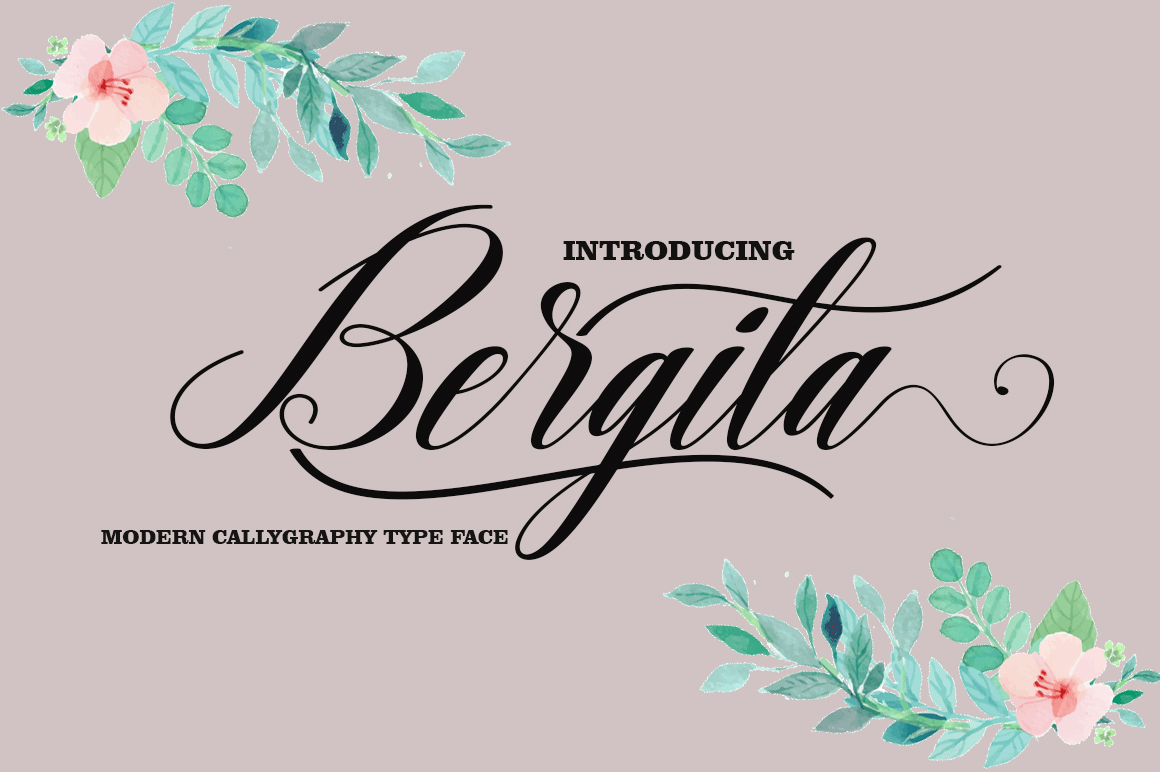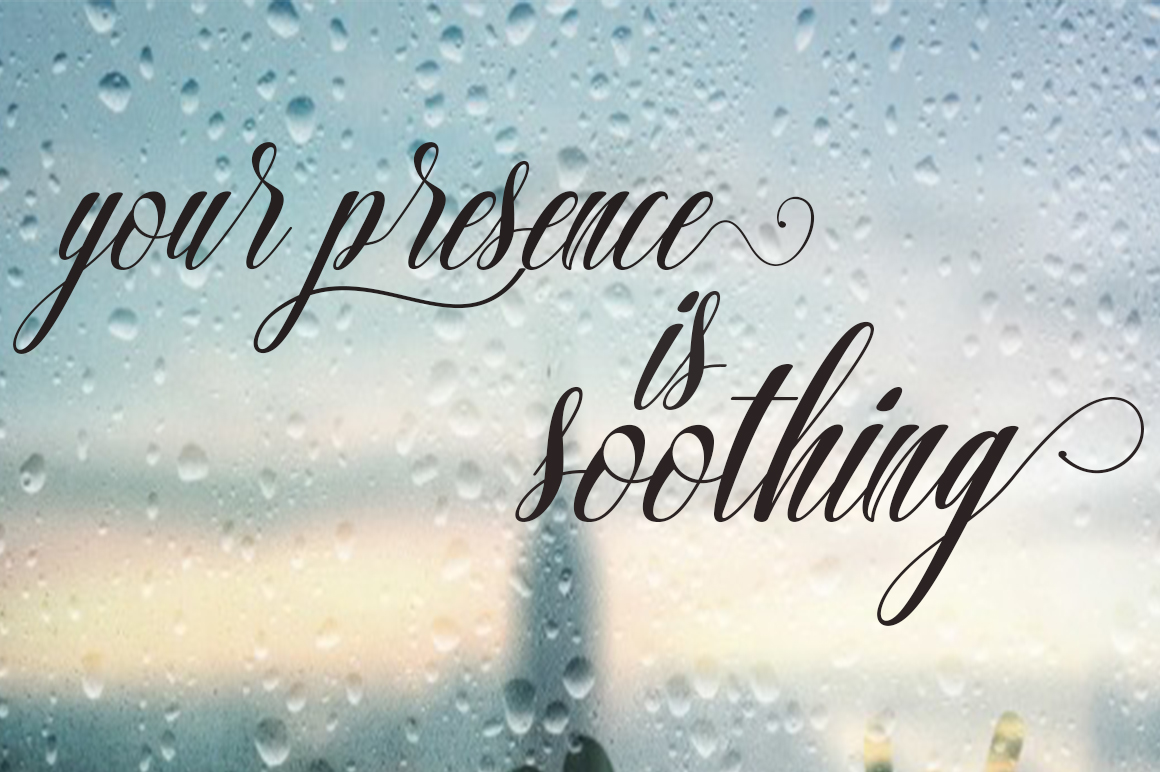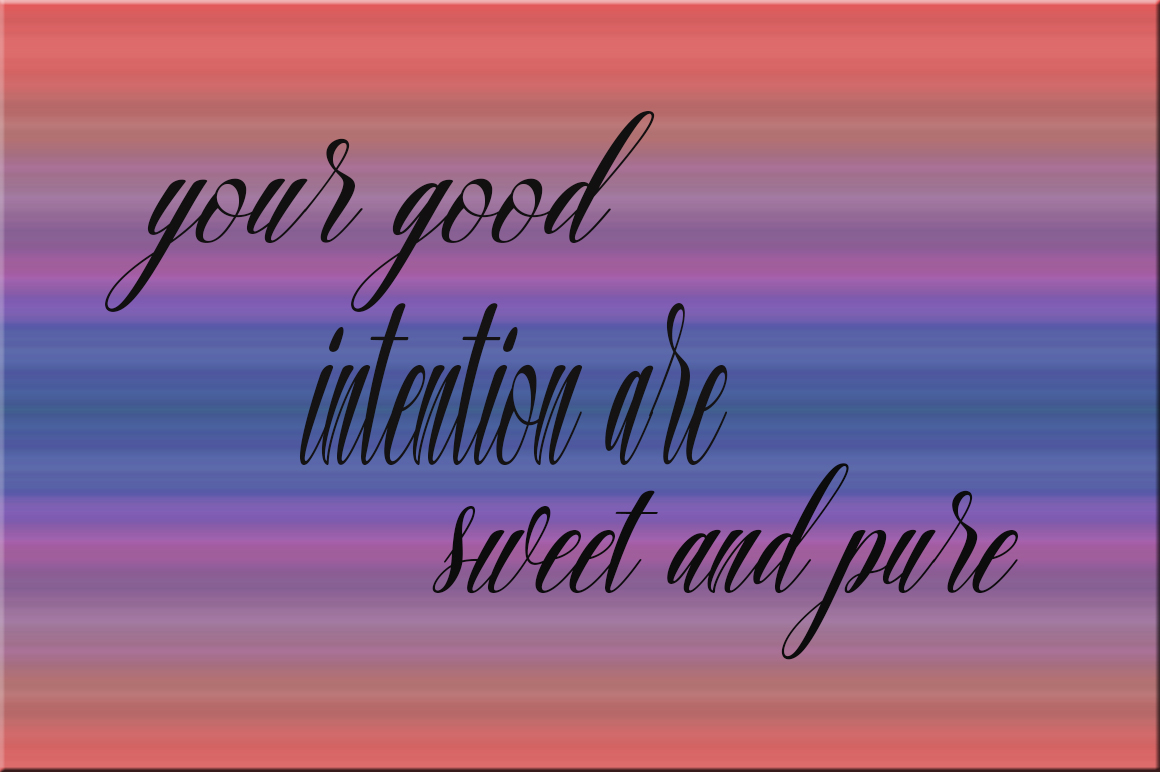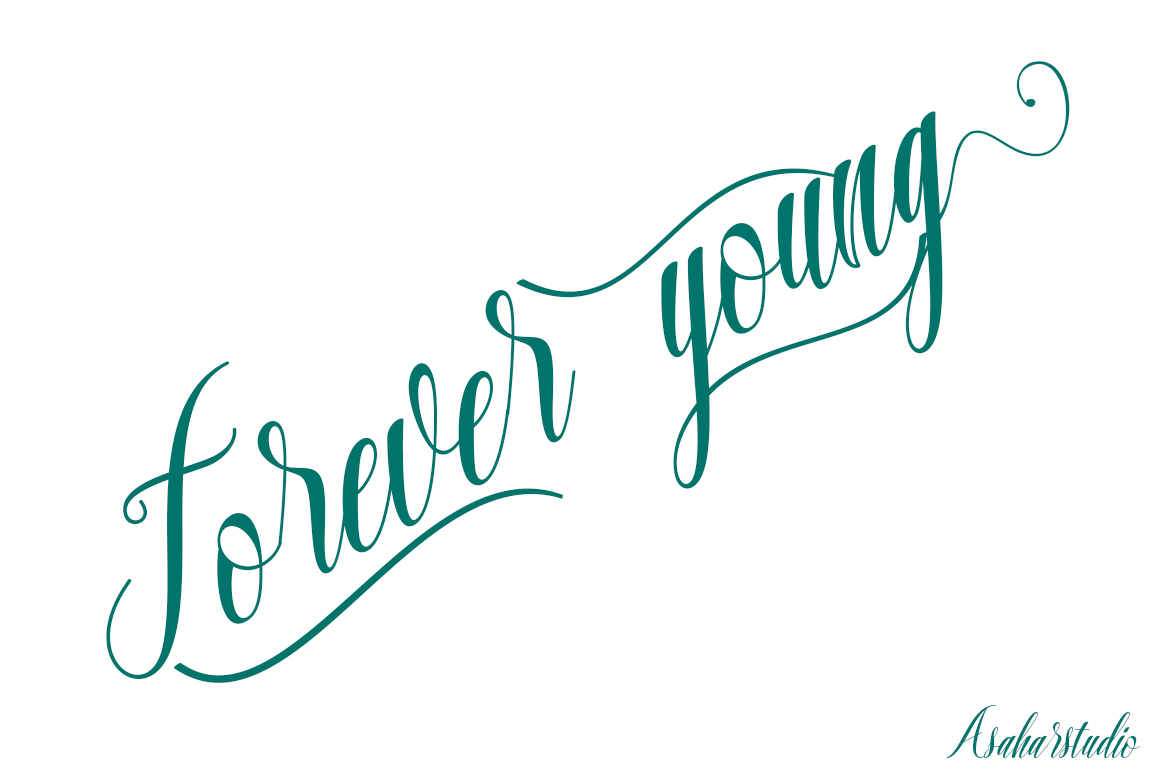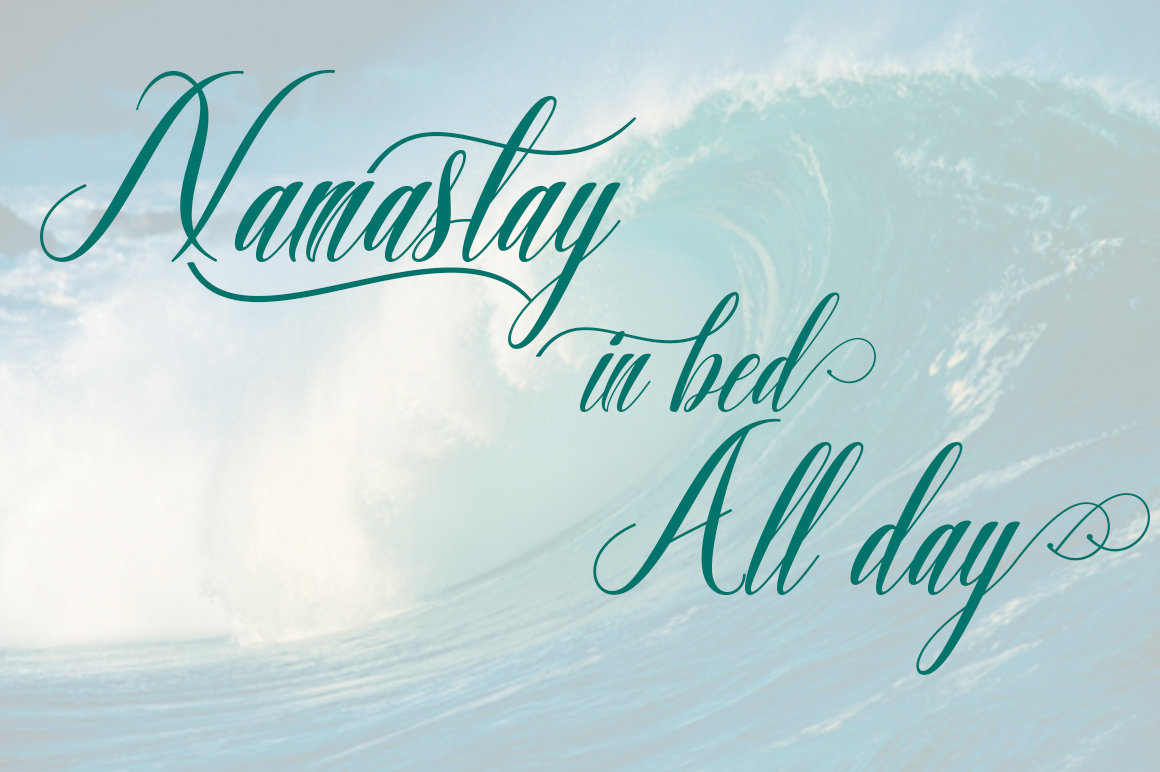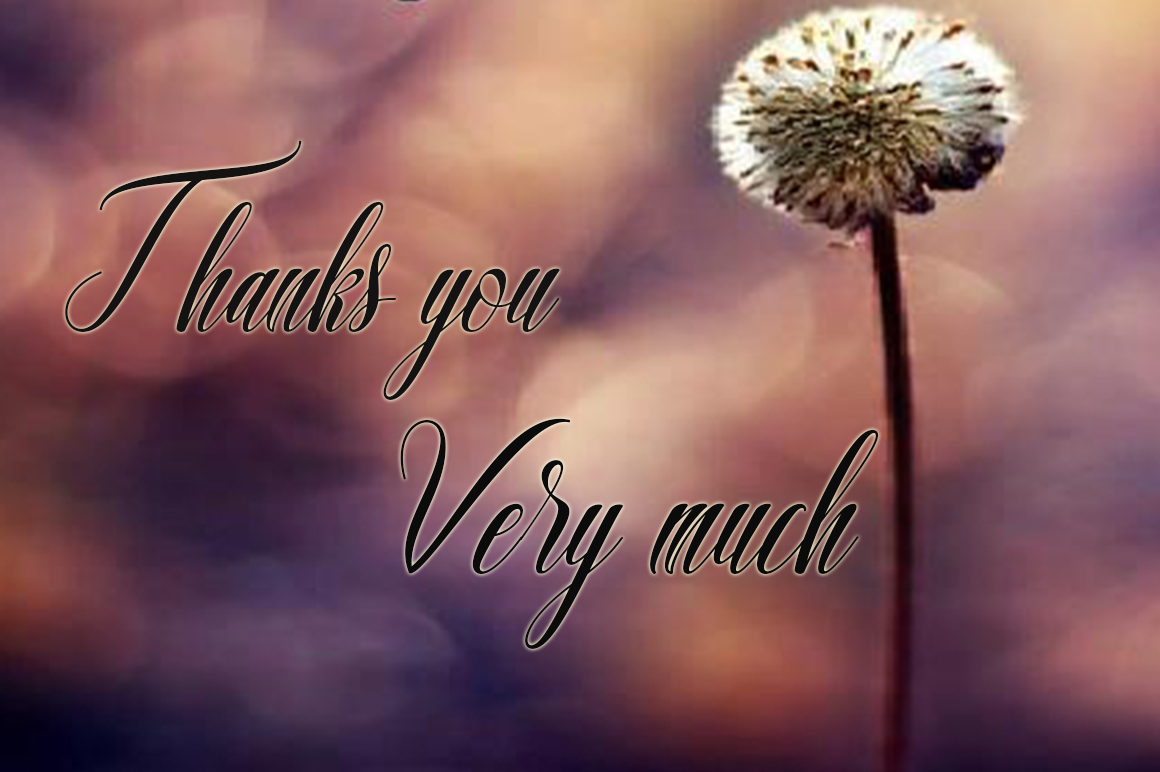
Bergita Font
About Bergita Font
Bergita is a handwritten font with a modern style. This calligraphic font feels natural and will bring a modern touch to classical designs.